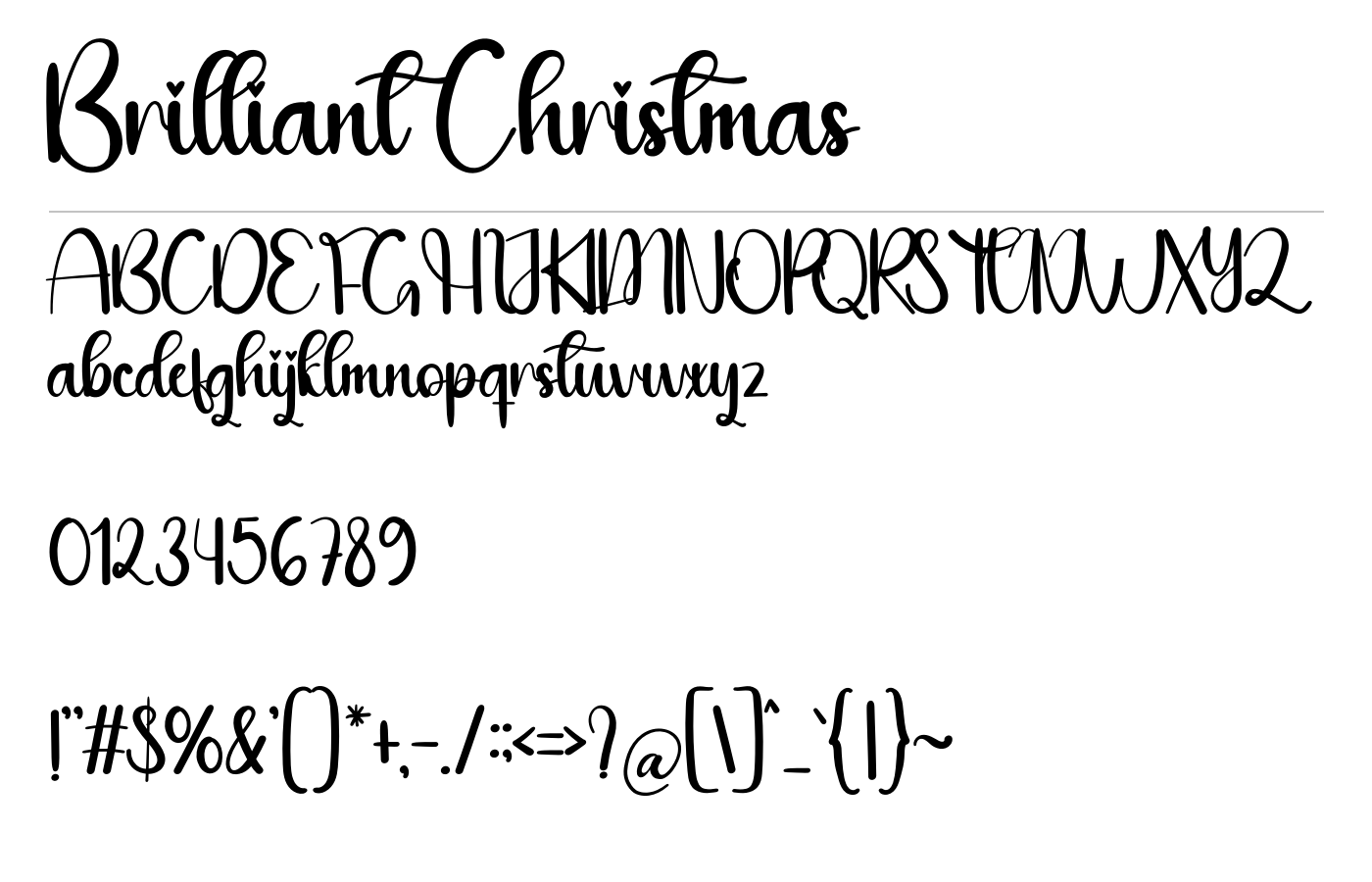
Brilliant Christmas is a whimsical script font with a playful and festive character, featuring smooth, flowing strokes and charming heart accents on some letters. Its unique, casual style with varying line thickness and elongated letterforms makes it perfect for holiday-themed designs, greeting cards, and fun branding that aims to evoke warmth and joy. This font works beautifully in headlines, invitations, and packaging where a lively, cheerful atmosphere is desired.
Brilliant Christmas Font